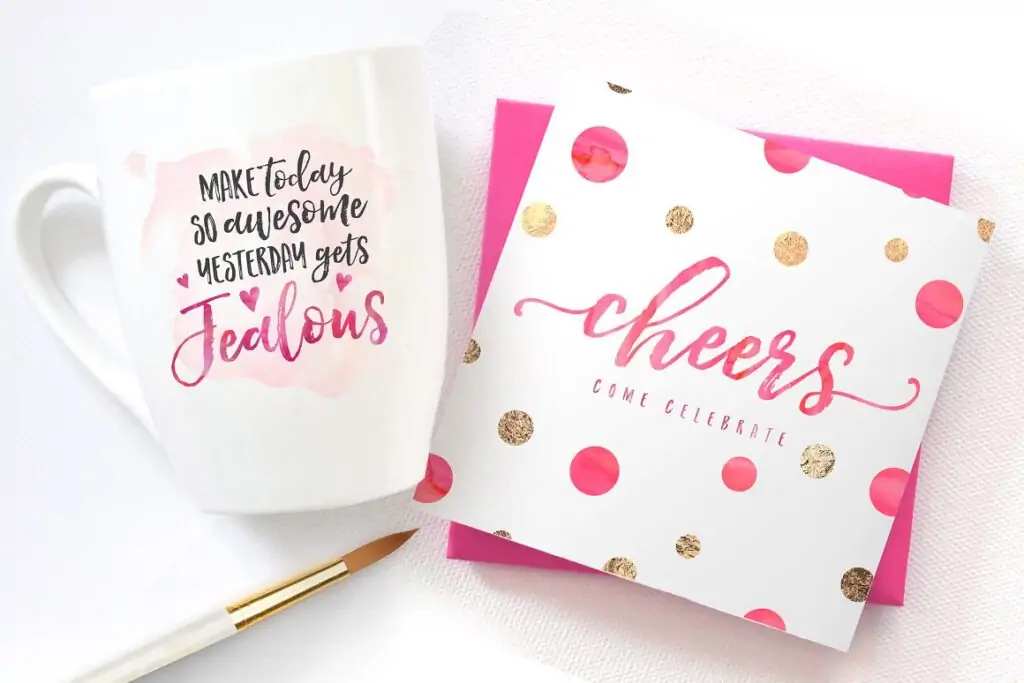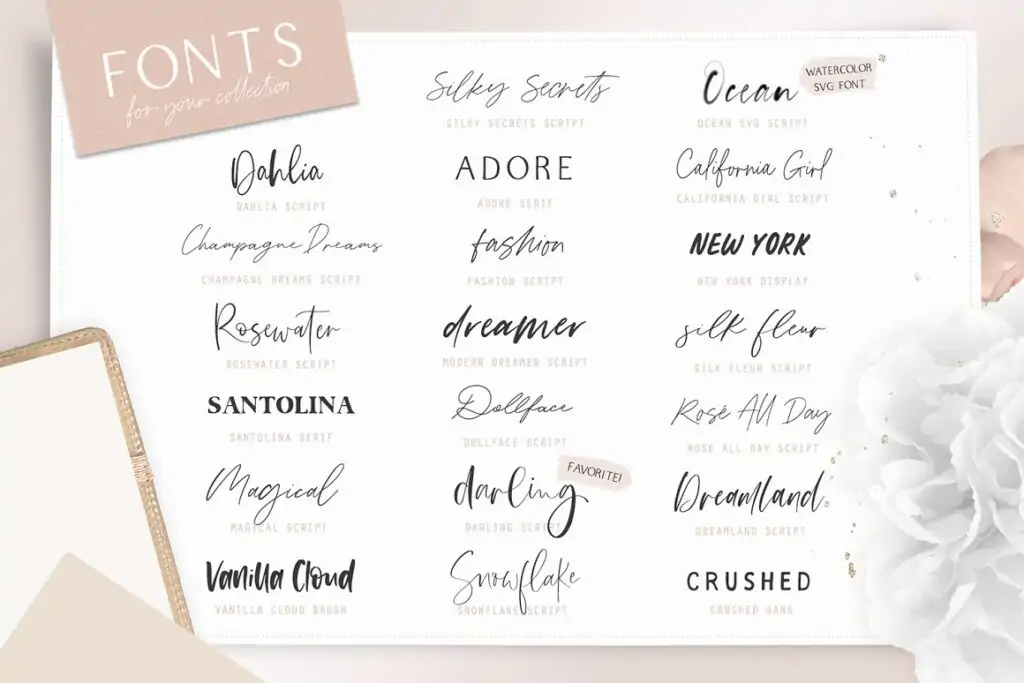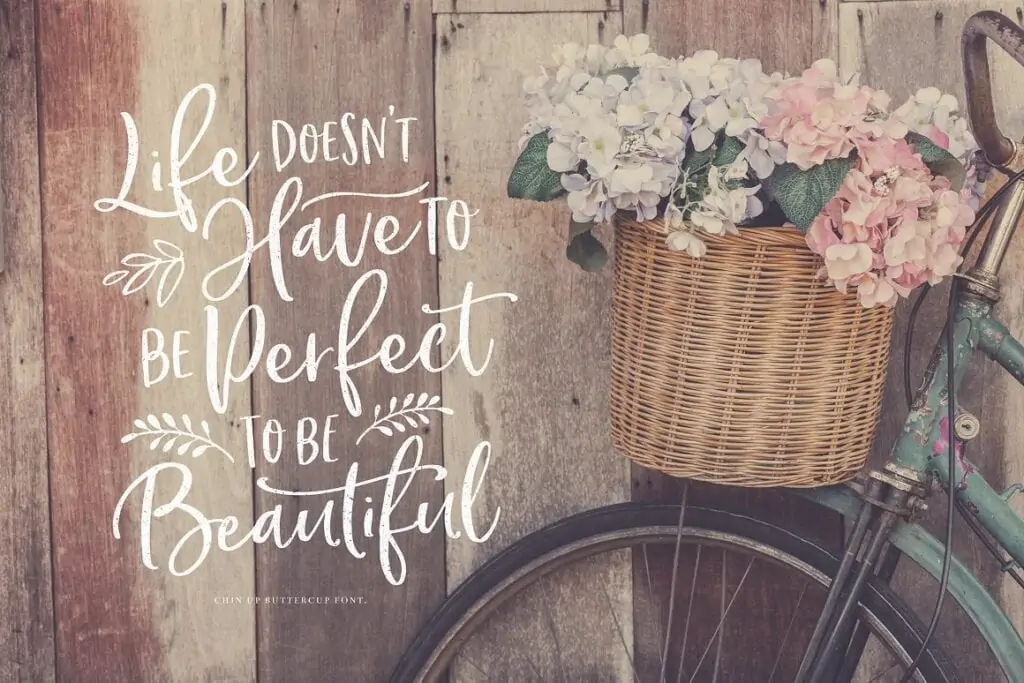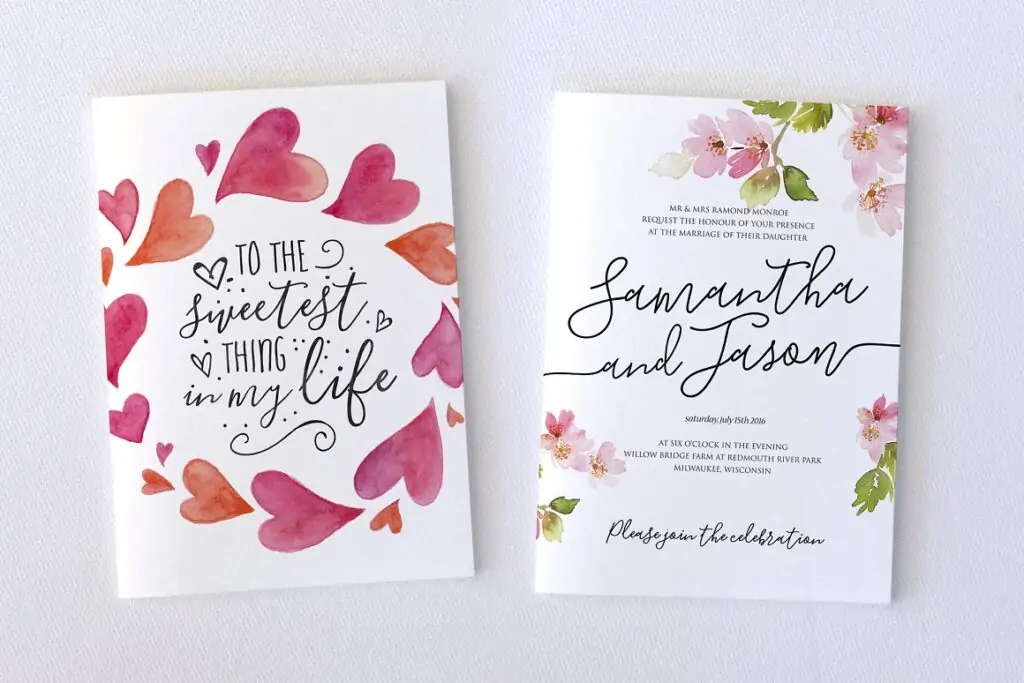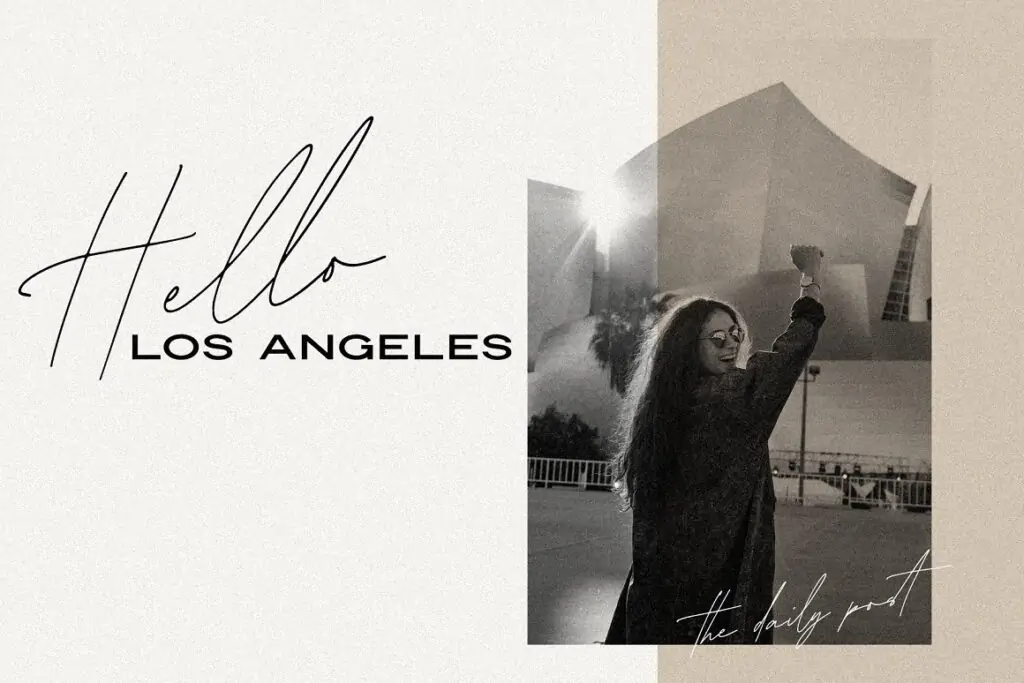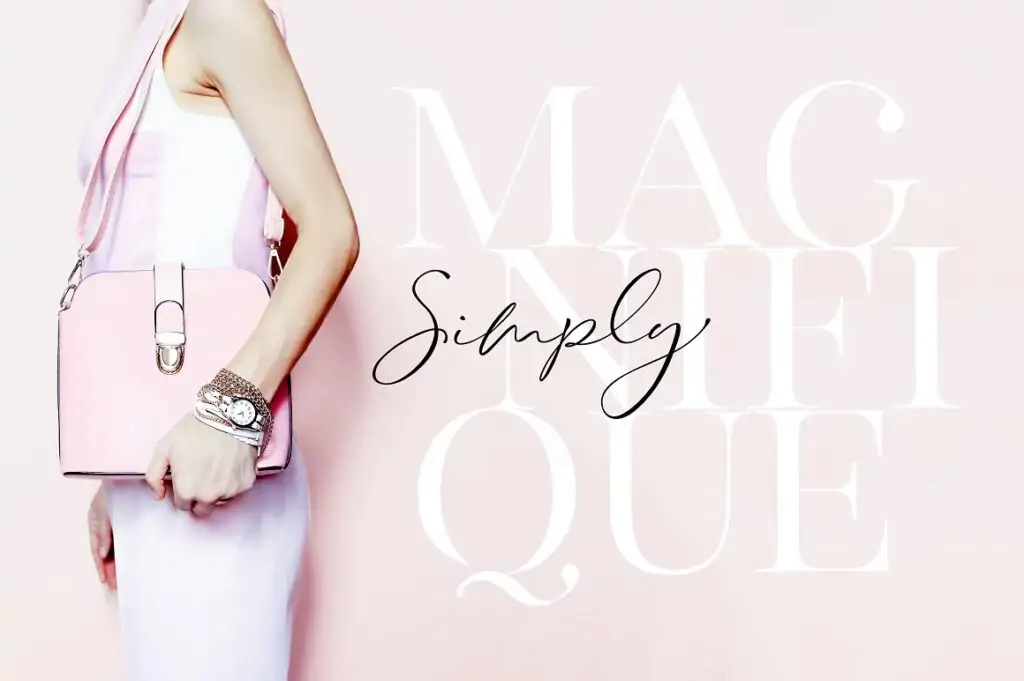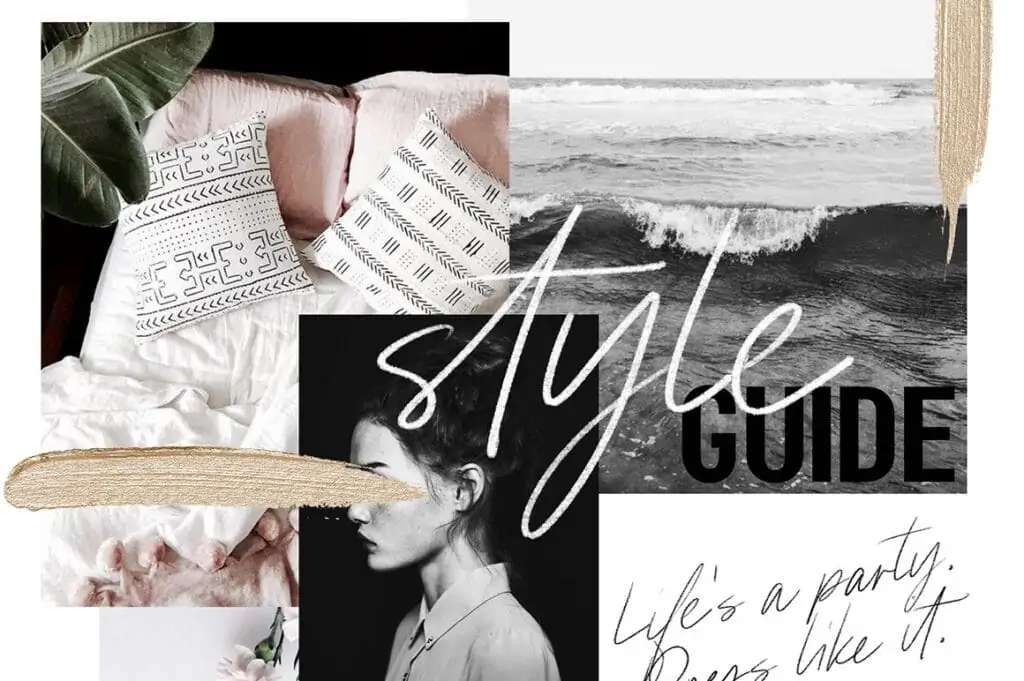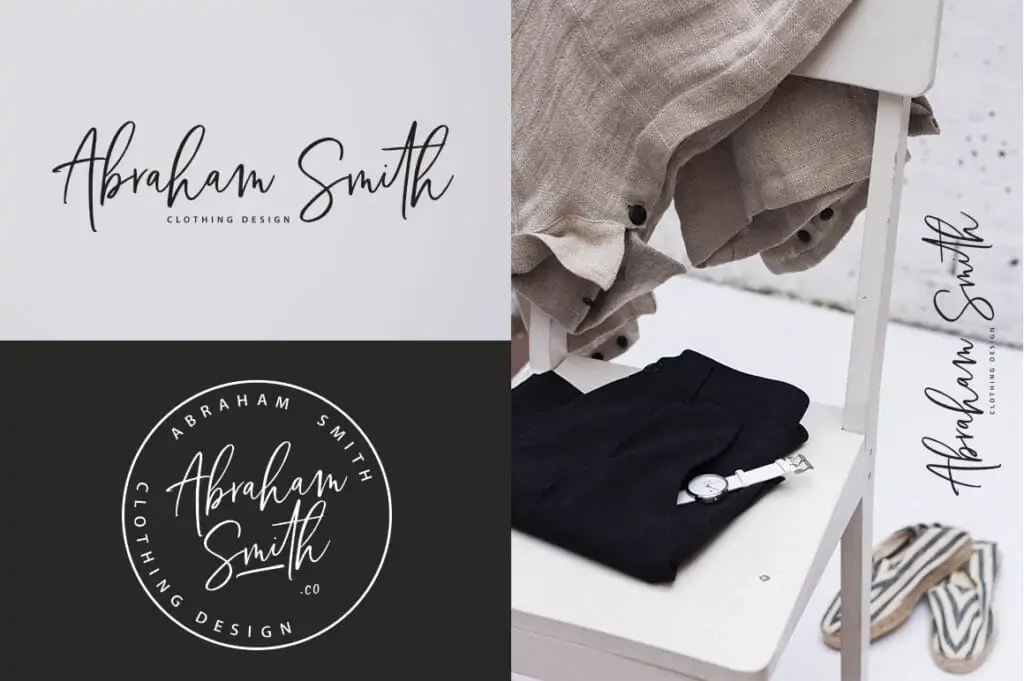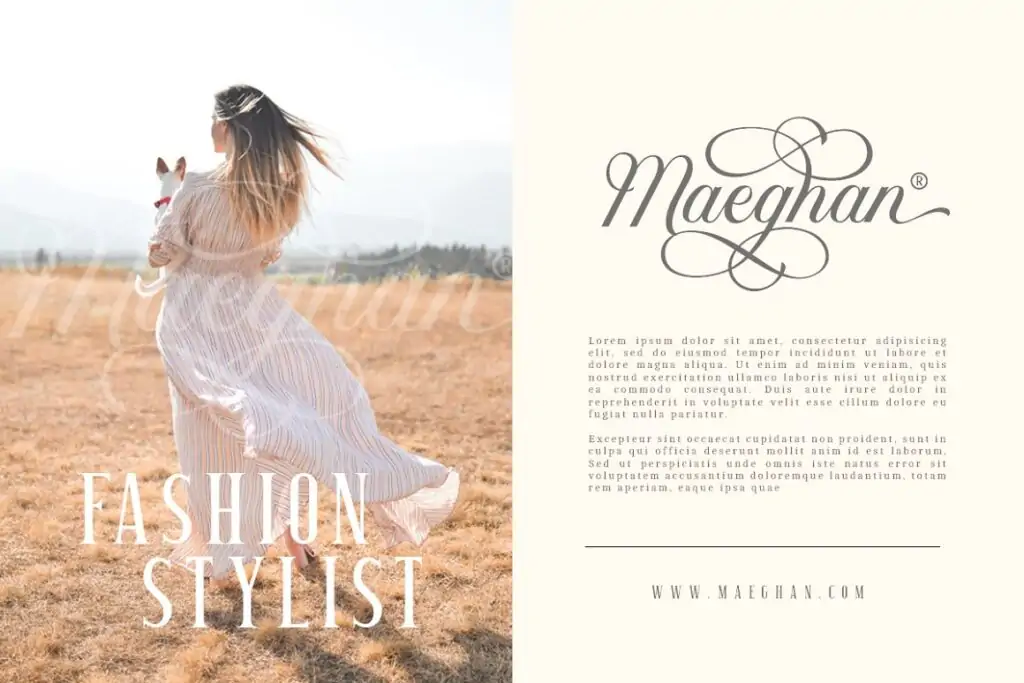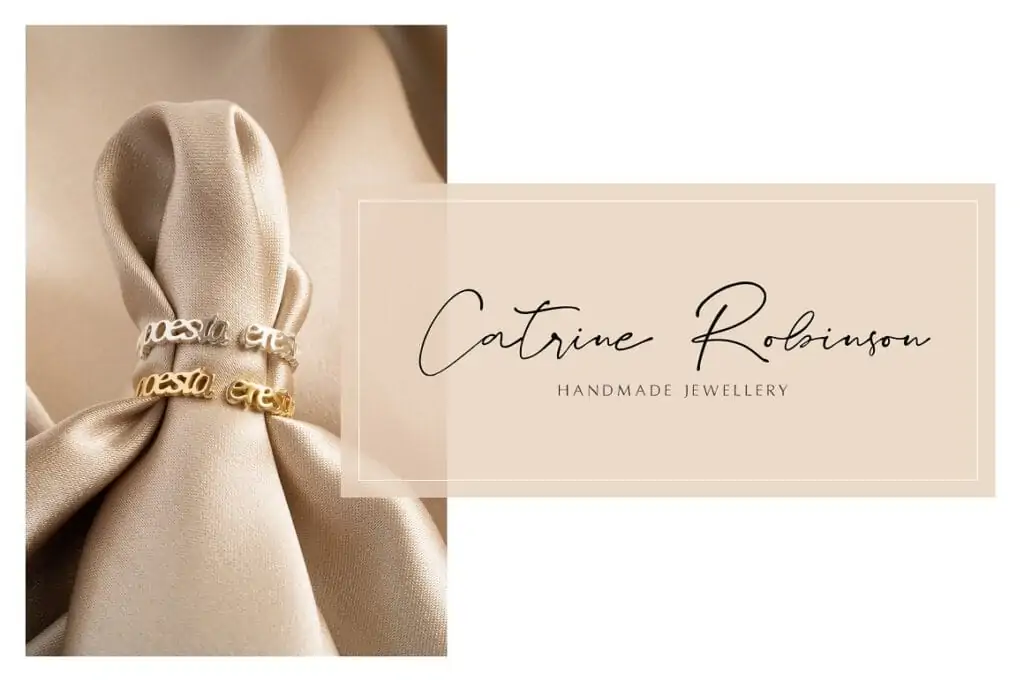
Are you looking for the best feminine font pairings to create beautiful designs? Here are the must-have feminine font combinations that will blow your mind.
Picking your favorite feminine font pairing to work with is like being a kid in a candy store. So many beautiful options to choose from, but which one to get?!
Over the years, I have worked with a bazillion fonts, but I always go back to my all-time favorites. A font pairing can convey more than just words; it transforms text into an identity your audience can associates with your business and brand.
I am here to take the stress out of the font selection process with this curated list of feminine font pairings.
FEMININE FONT PAIRINGS
1. California Palms – A stylish & girly font pairing
Sometimes a font is more than a font – it’s a feeling. Imagine being on a beach and watching the dreamy sunshine through rose-colored glasses. That’s precisely how the California Palms font will make you feel!
This smashing feminine and girly font combination feature a stylish script font that compliments the serif font beautifully.
California Palms is a versatile font pairing to make one-of-a-kind graphics for branding, quotes, social media posts, invitations, posters, apparel, and many more.
2. Hello Sunshine – Gorgeous feminine font pairing
The Hello Sunshine font combination is sure to add feminine charm to any project it touches! The hand-brushed font duo features a playful script font with a dancing baseline and a marker font.
The feminine script font features stylistic alternates and ligatures that will help you create unique designs to mesmerize your audience.
The perfectly paired fonts, along with the 52 bonus ornaments, make it super easy to create typographic designs for wall art prints, invitations, apparel, and branding.
3. Modern Dreamer – The ultimate feminine fonts bundle
Get all the beautiful feminine fonts you will ever need with this stunning Modern Dreamer font bundle by Blog Pixie. With 20 fonts to work with, the bundle packs in script, serif, display, and sans fonts.
Mix and match the fonts to create unique graphics for logos, branding, websites, apparel, and social media.
What makes this bundle a must-have is that it includes tons of feminine graphic elements, like brush strokes, splatters, collage clipart, glitter, and photoshop brushes. When combined with the fonts, these creative graphics give you endless opportunities to create mind-blowing designs.
4. Chin Up Buttercup – A playful feminine font duo
Chin Up Buttercup is a fabulous feminine font pairing that will make your designs stand out. The whimsical font pair features a playful script font with a charming all-caps font. Plus, the script font comes with many beautiful alternates that will help you make every design unique.
Use the font combination for your DIY craft projects, wall art, branding, social media quotes, posters, and so many more. What’s more, the doodles included in the pack will help you make typographic designs that woo.
5. The Blooming Elegant – A flirty feminine font trio
The Blooming Elegant Font Trio is one of the most popular feminine font combinations out there. Chances are you have come across this beautiful font family in action and wondered what the fonts used were. Well, now you know it!
The elegant yet playful feminine font family will help you effortlessly create that authentic handwriting look to your designs.
The script font features elegant swashes, stylistic alternates, and a flirty baseline. The 120 sweet doodles included as a bonus make this font family a must-have.
6. Modena – A high fashion feminine font duo
Are you looking for a high fashion font that will take your brand to the next level? Look no further because the Modena Font Duo will blow your mind. The stylish and luxurious feminine font combination features a trendy script font with an elegant sans font.
This font’s minimal yet modern aesthetic will help you establish the look and feel of a luxury brand. It is best for lifestyle and beauty businesses to make logos, social media posts, website graphics, mood boards, and many more.
7. Stay Classy – An elegant feminine font pairing
Are you going for the classy, feminine vibe? The Stay Classy font got you covered with its sophisticated lines and stylish curves. This bomb of a feminine font combination will add a refined look to your designs that’ll entice your audience for more.
Now that we have covered all the best feminine font pairings, you can pick the best feminine font combination for your design projects!